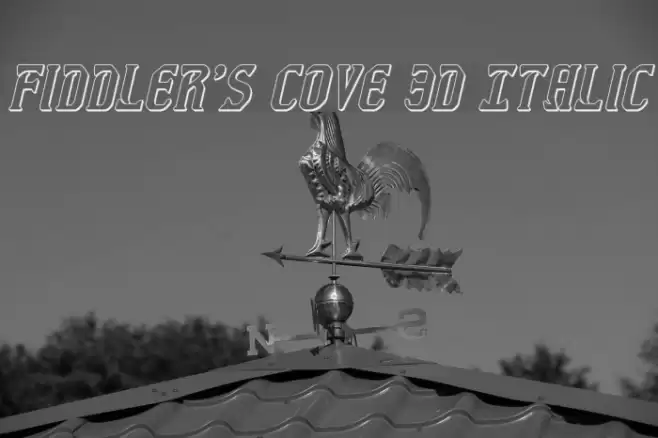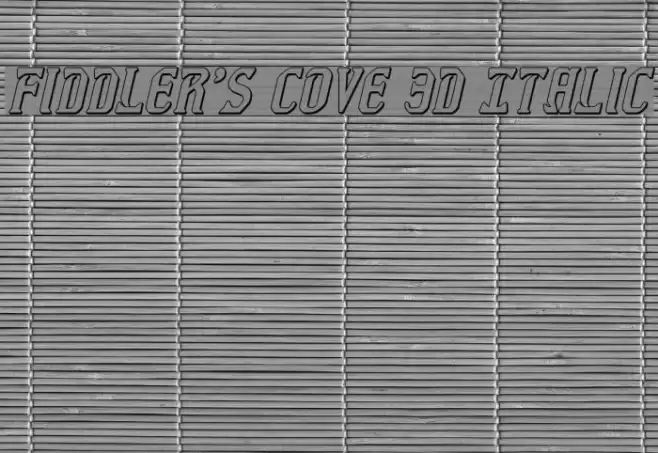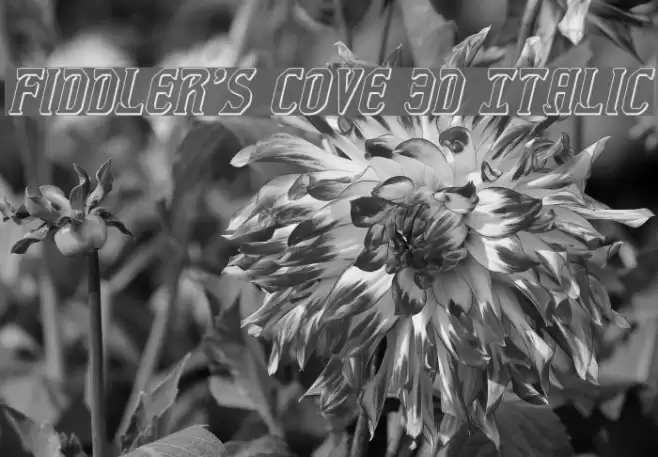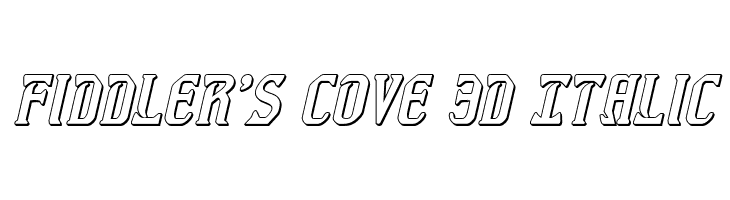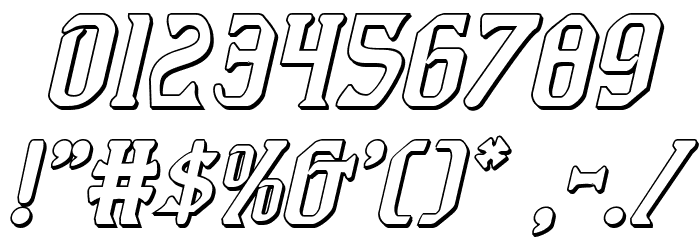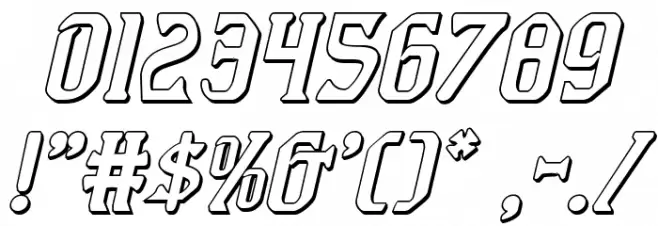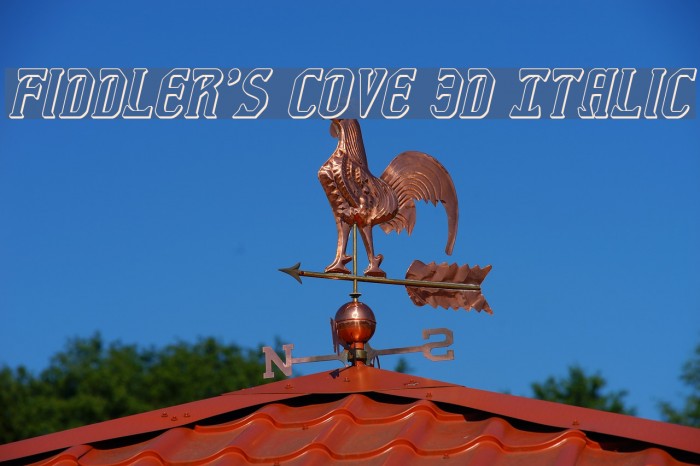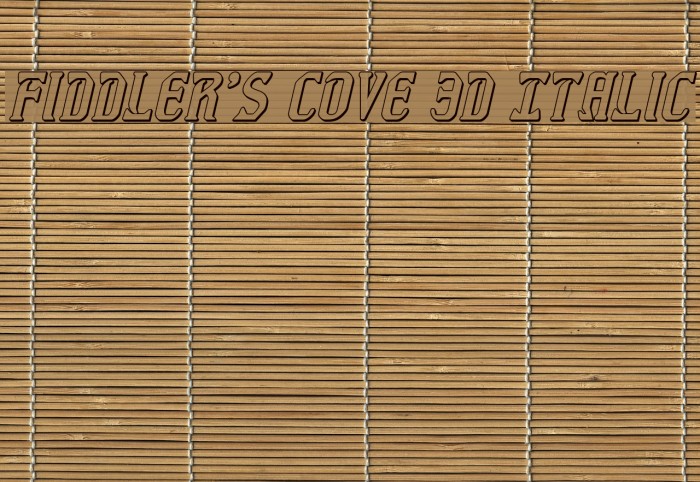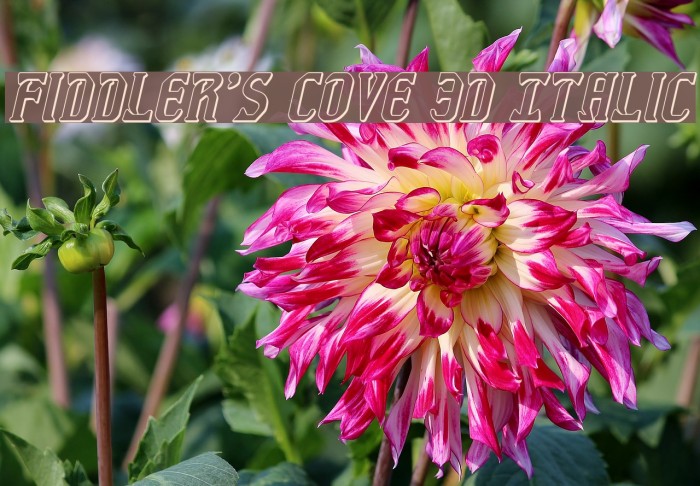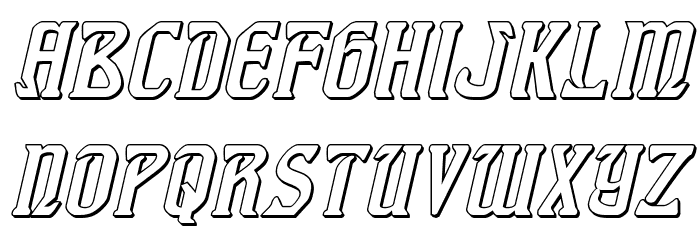
Fiddler's Cove 3D Italic Font
Fiddler's Cove 3D Italic Description
This font features a bold, three-dimensional design with an italic slant, giving it a dynamic and eye-catching appearance. The characters are outlined, creating a shadow effect that enhances the 3D illusion. The uppercase and lowercase letters maintain a consistent style, with sharp angles and clean lines. The numerals and special characters are designed to match the overall aesthetic, making them suitable for a variety of uses. The font's unique style makes it ideal for projects that require a strong visual impact.
A bold, 3D italic font with outlined characters and a dynamic style from Uncategorized fonts.
- Proposed Projects: Ideal for posters, logos, video game graphics, and any design requiring a striking, modern look.
Fiddler's Cove 3D Italic UPPERCASE
Fiddler's Cove 3D Italic LOWERCASE
Fiddler's Cove 3D Italic OTHER CHARS